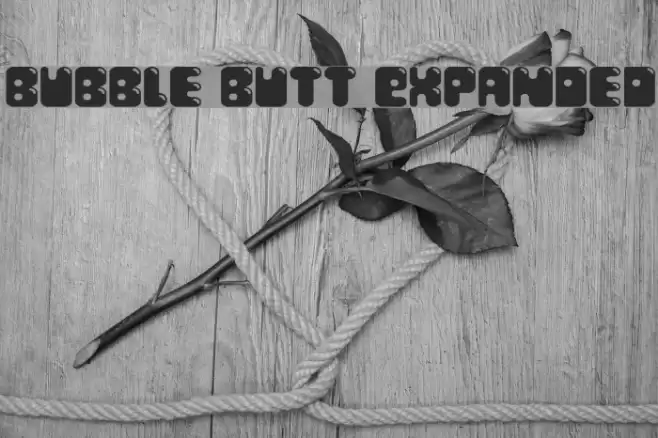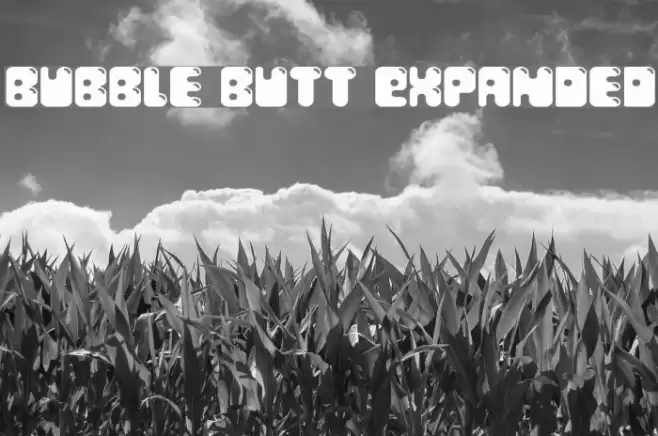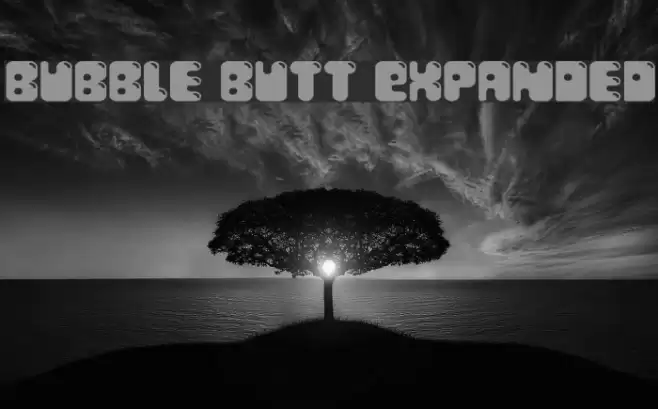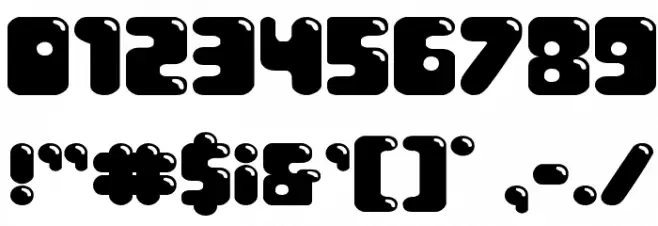
Bubble Butt Expanded Font
Bubble Butt Expanded Description
This playful and bold font features a unique bubble-like design with expanded, rounded edges that give it a fun and whimsical appearance. The characters are heavily stylized, with exaggerated curves and a distinct, chunky form that makes each letter stand out. The font maintains a consistent weight throughout, creating a uniform look that is both eye-catching and easy to read. Its distinct style is perfect for projects that require a touch of creativity and personality, making it ideal for children's books, playful branding, or any design that aims to capture a sense of fun and excitement.
A bold, playful font with bubble-like, expanded characters from Fancy fonts.
- Proposed Projects: Ideal for children's books, playful branding, posters, and creative designs.
- Overall Style: Playful, Whimsical